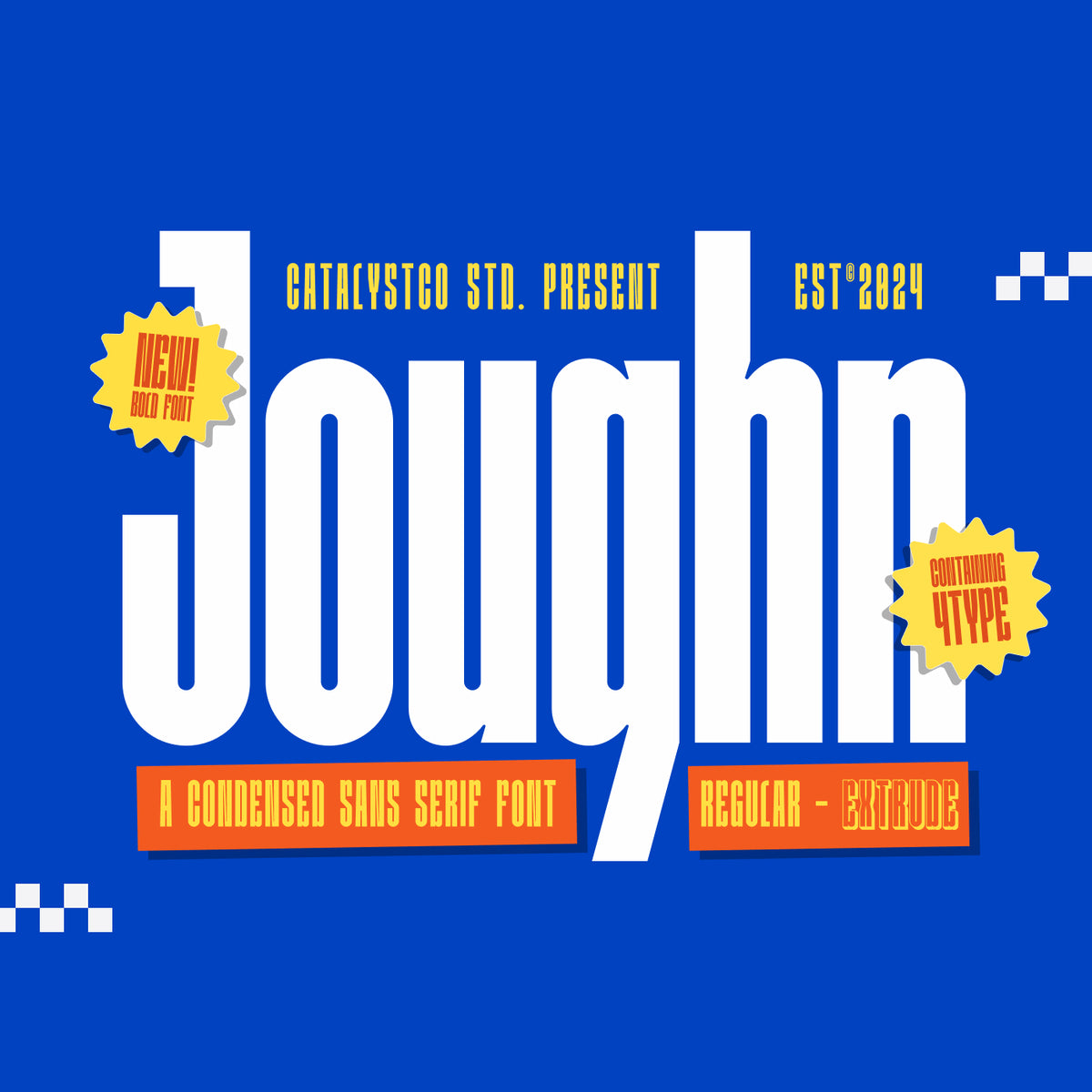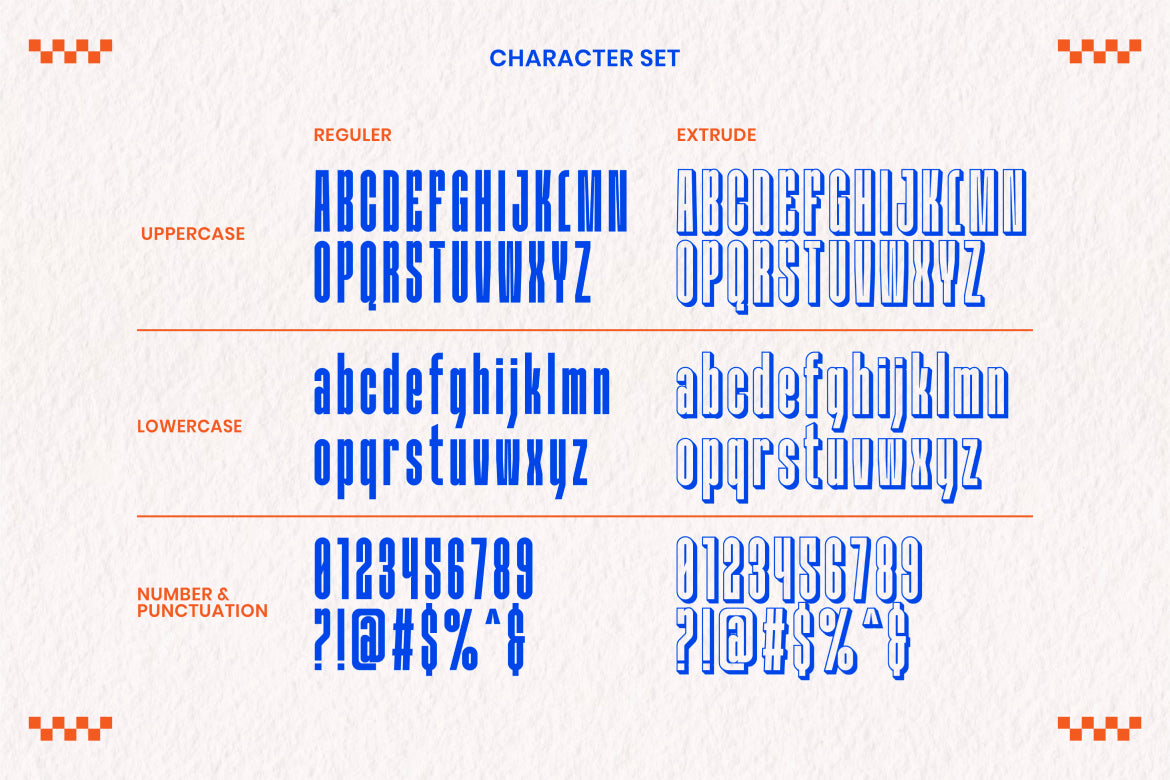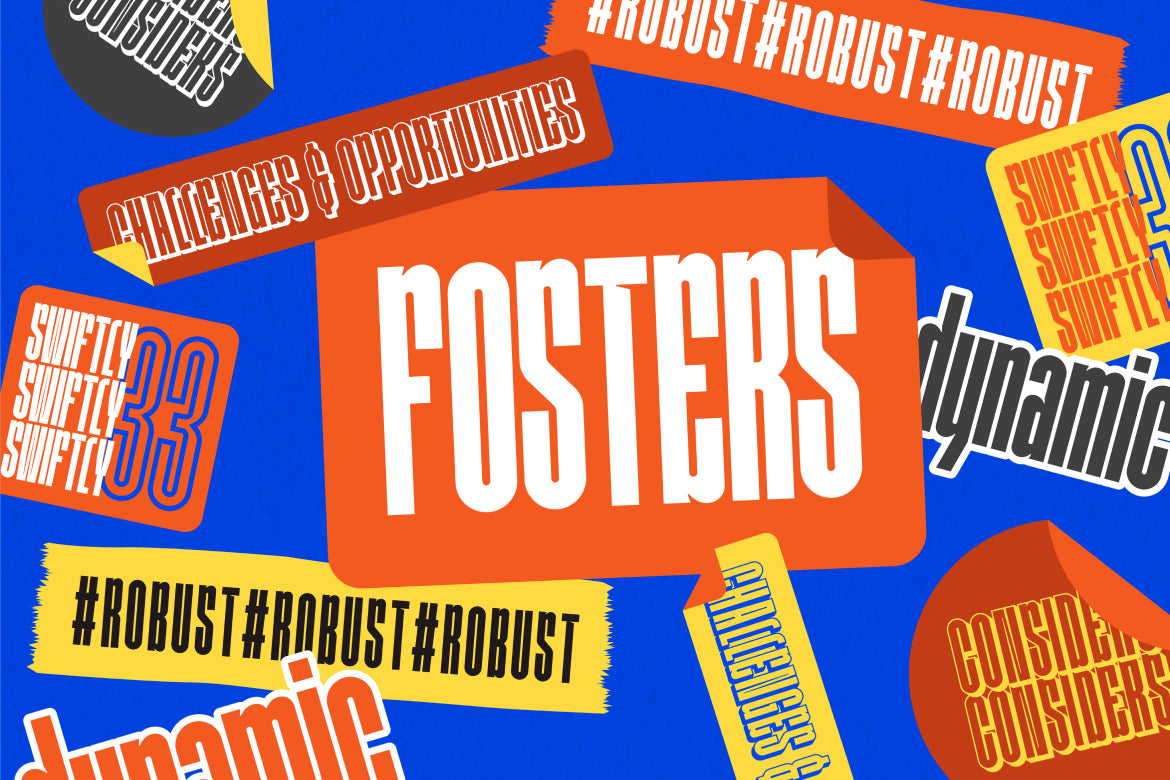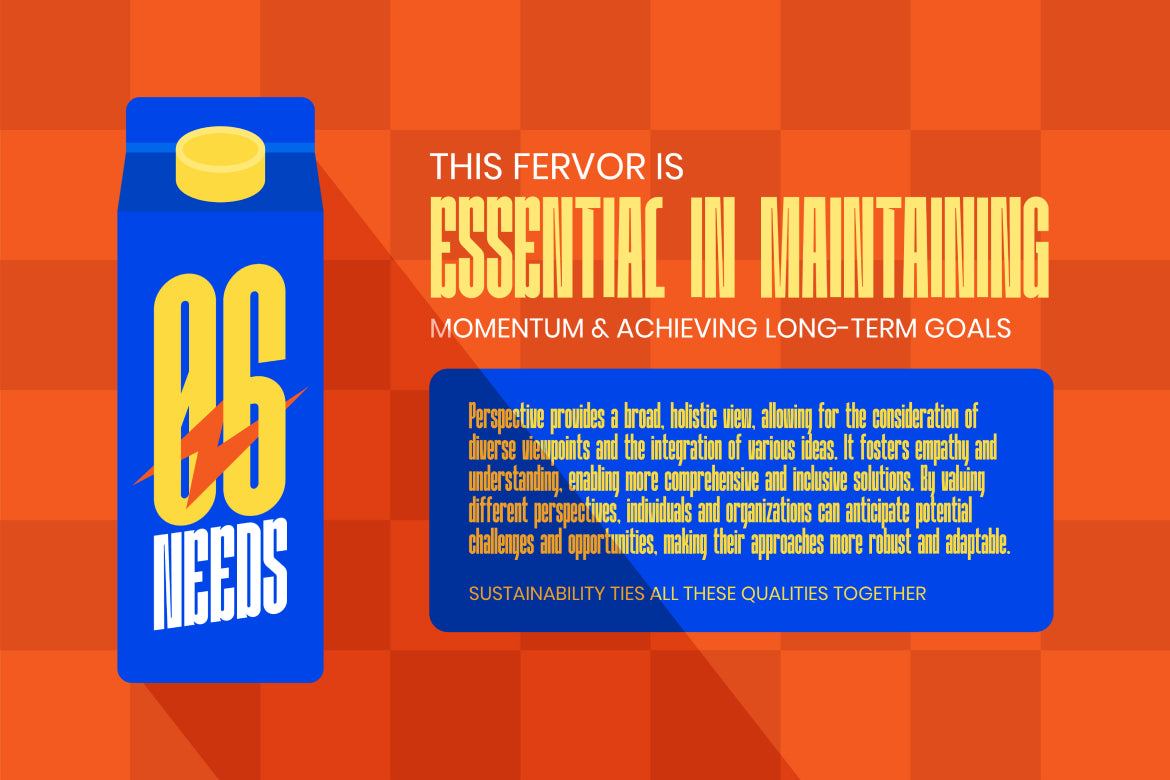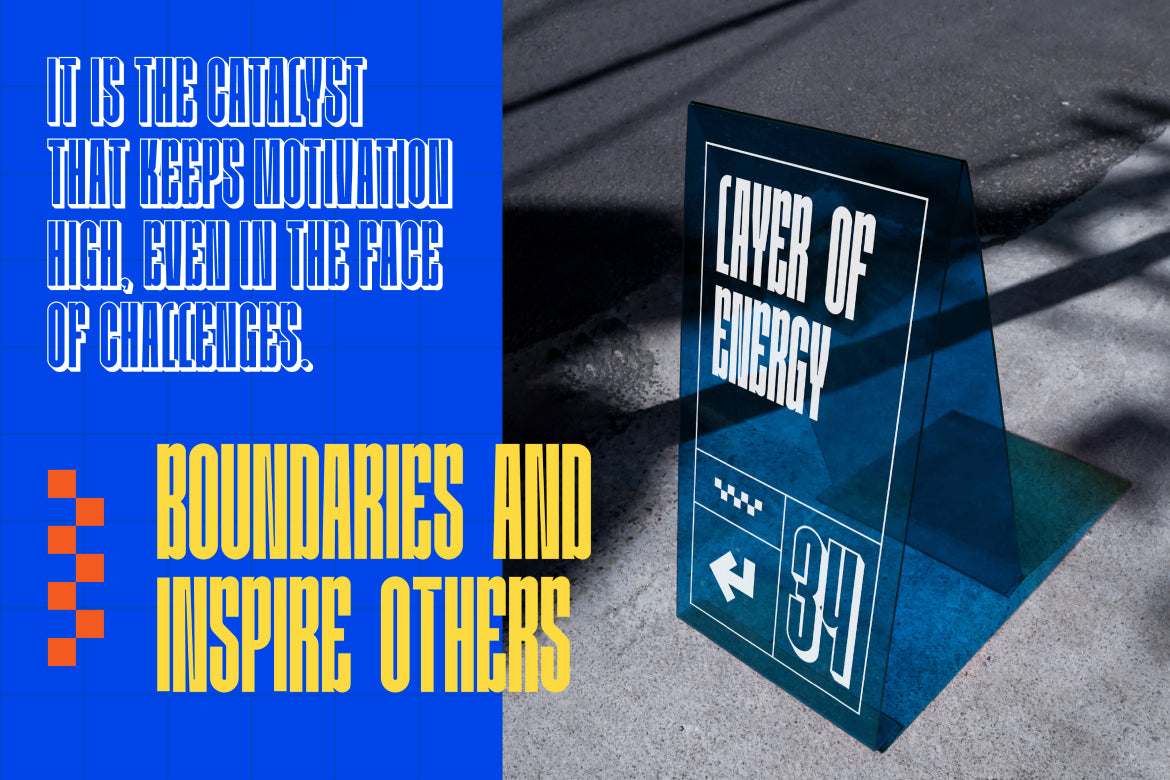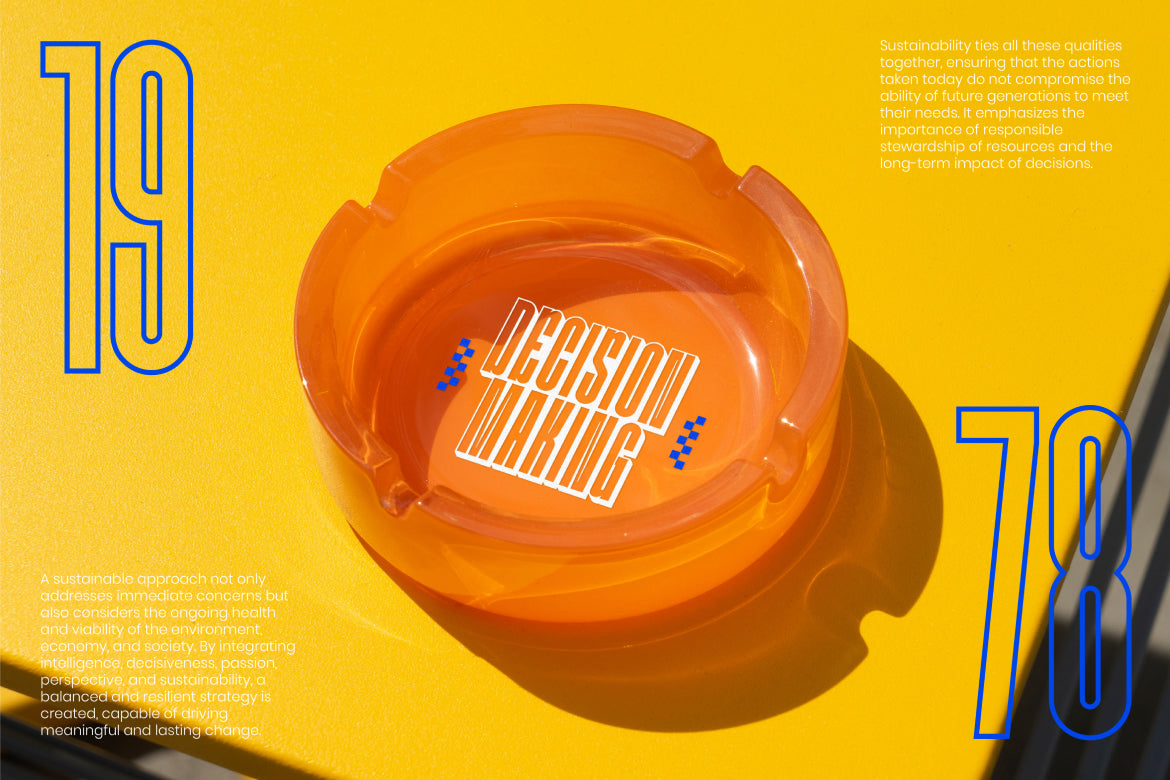
Joughn Condensed Sans Serif Font
Joughn is a bold condensed sans serif display font with tall, narrow proportions and a distinctive editorial character. Its letterforms feature elongated vertical structures, compact widths, rounded terminals, and strong, clean strokes that create a striking contrast between the narrow letter shapes and their substantial weight. The unusual construction of letters such as J, g, h, and n adds personality while maintaining a cohesive condensed rhythm, giving the typeface a retro-inspired yet contemporary display appearance.
Relevance and Use Case is perfect for projects that need tall, narrow typography with a bold visual presence and retro-editorial personality. Its condensed proportions make it useful for magazine covers, posters, fashion campaigns, advertising layouts, packaging, signage, event graphics, branding, social media artwork, and promotional campaigns. The Regular and Extrude styles allow designers to create either a clean typographic look or a more dimensional treatment, while the narrow construction is especially effective for stacked headlines, large titles, and space-conscious layouts.
Regular and Extrude Style
Joughn is a bold condensed sans serif display font with tall, narrow proportions, rounded terminals, and distinctive letterforms including J, g, h, and n. It includes Regular and Extrude styles, uppercase and lowercase characters, ligatures, alternates, numerals, and punctuation, available in TTF, OTF, and WOFF formats.